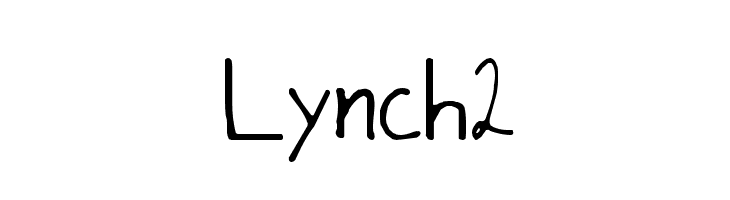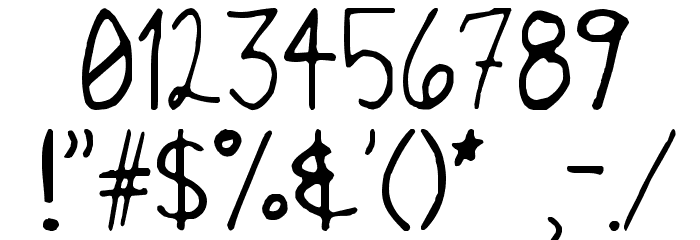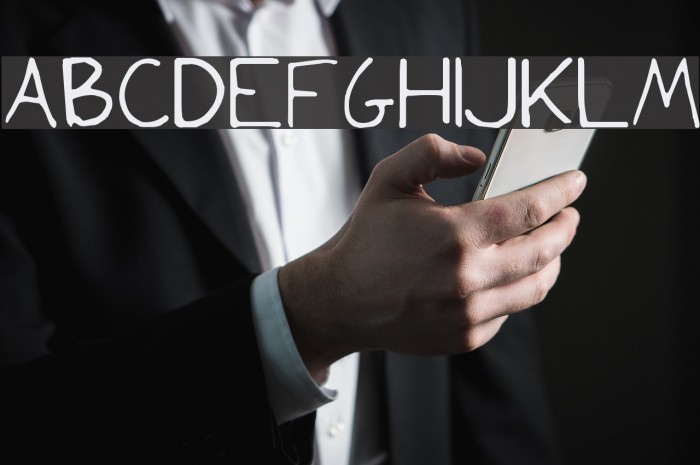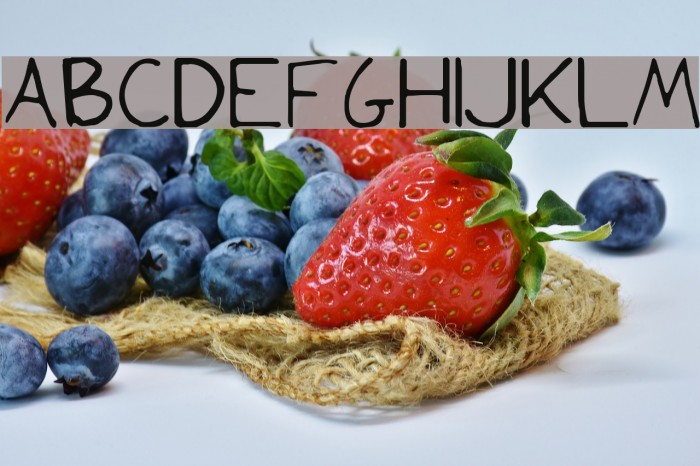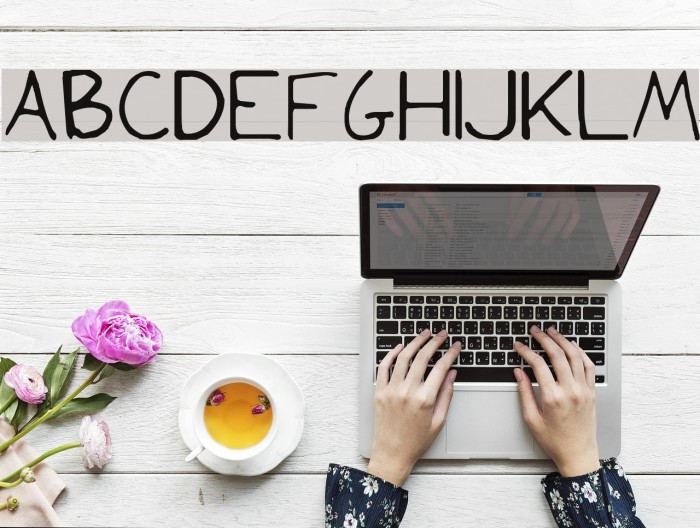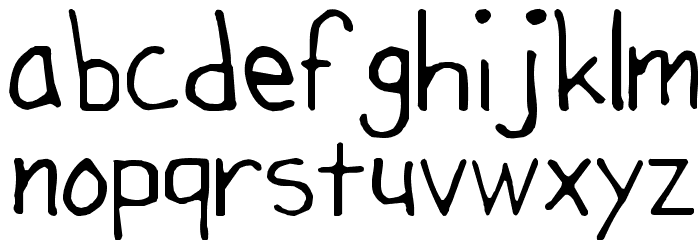
Lynch2 Font
Lynch2 Description
This font features a playful and casual handwritten style, characterized by its irregular and slightly whimsical letterforms. The uppercase and lowercase letters maintain a consistent flow, with rounded edges and varying stroke widths that add to its informal charm. The numerals and special characters follow the same playful aesthetic, making it suitable for creative and informal applications. The font's overall appearance is approachable and friendly, ideal for projects that require a personal touch.
A playful, casual handwritten font with irregular, whimsical letterforms from Handwritten fonts.
- Proposed Projects: Ideal for greeting cards, children's books, casual invitations, and playful branding.
- Overall Style: Casual, Playful
- Use Case: Headlines, Informal text, Creative projects